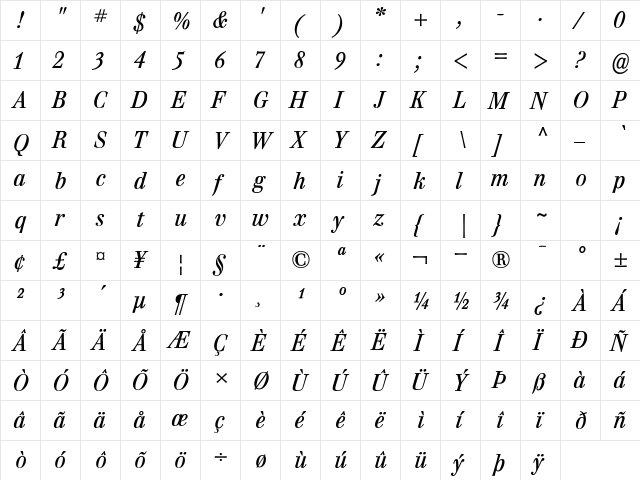
WalburnText Italic Font Preview
WalburnText Italic
WalburnText Italic Font Details
Design Context for WalburnText Typeface
WalburnText takes a measured approach to typography — its balanced proportions and neutral character make it a reliable workhorse for both digital and print work. Its italic angle brings a sense of urgency and motion to the letterforms.
Pro Tip: Use WalburnText for emphasis, pull quotes, and subheadings where its slanted energy can add rhythm to the layout.